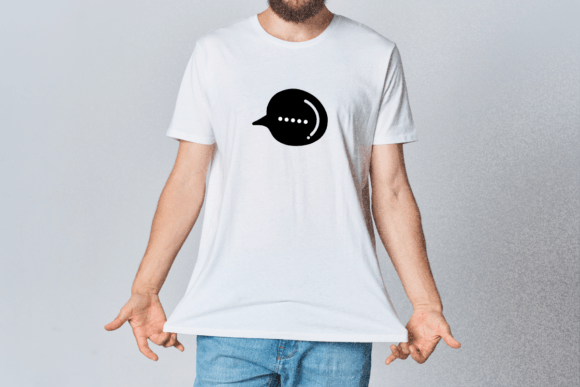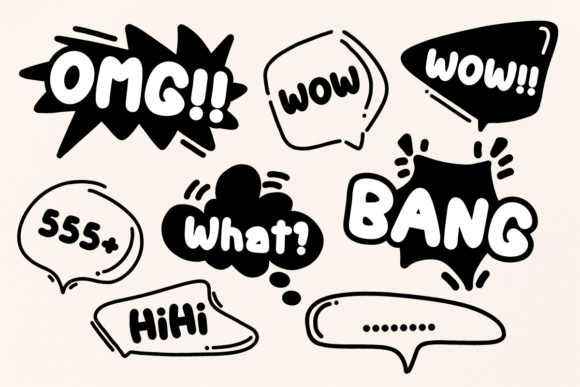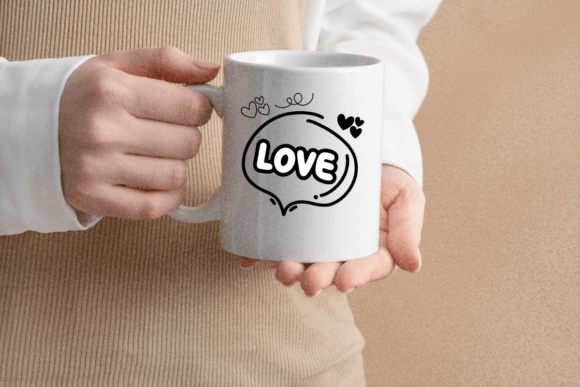
Introduction to Chat Box Font
Remember that moment when you’re working on a creative project, and you need just the right font to bring your design to life? For many designers, that ‘aha’ moment comes when they stumble upon a font that perfectly captures the tone and mood of their work. For us, that moment came when we discovered the charming Chat Box Font.
This adorable dingbats font is a game-changer for designers looking to add a touch of whimsy and personality to their projects. With its simple yet charming design, Chat Box Font is perfect for creating a wide range of works, from children’s storybooks to comic strips, and even DIY project products. Its versatility makes it a valuable resource for designers, allowing them to experiment with different designs and styles without worrying about the font getting in the way.
Key Features of Chat Box Font
- High-quality design: This font is crafted with precision and care to provide a unique and visually appealing experience for your creative project.
- Transparent background: This font features a transparent background, allowing you to easily overlay it on any image or design without compromising its clarity.
- High-resolution design: The Chat Box Font is designed at a high resolution of 300 DPI, making it suitable for use in various creative projects, from web design to print media.
- Unique characteristics: The font features a distinctive and playful design, making it perfect for use in creative projects that require a touch of whimsy and personality.
Honest Review: Chat Box Font
As a designer, I’m always on the lookout for unique and high-quality design resources to enhance my creative projects. The Chat Box Font caught my attention, and I decided to give it a try.
What works well: ✨ The Chat Box Font has a distinctive, modern design that’s perfect for digital applications, such as messaging apps, social media, and websites. The font is highly customizable, allowing me to adjust the color, size, and style to fit my project’s needs.
- Transparent background option for seamless integration
- High-quality design for digital applications
- Customizable color, size, and style options
However, I do have a few concerns: ⚠️ The font is not as versatile as I’d like, and it may not be suitable for print materials or traditional designs. Additionally, the font may be too modern for some projects, which could detract from the overall aesthetic.
Overall, the Chat Box Font is a solid addition to any designer’s toolkit, but it’s essential to use it judiciously and consider the project’s specific needs. With proper use, it can add a unique touch to digital applications and creative projects.
Tips for Getting the Most Out of Chat Box Font
Chat Box Font is ideal for social media graphics, presentations, and digital marketing materials. It’s a great design resource for creating eye-catching and engaging content.
Yes, the Chat Box Font is designed to be highly legible and visually appealing, even on a website with a transparent background. The font’s high quality and clear typography ensure that it will display well on various backgrounds, including images, videos, and other design elements. However, it’s always a good idea to test the font in different contexts to ensure optimal results.